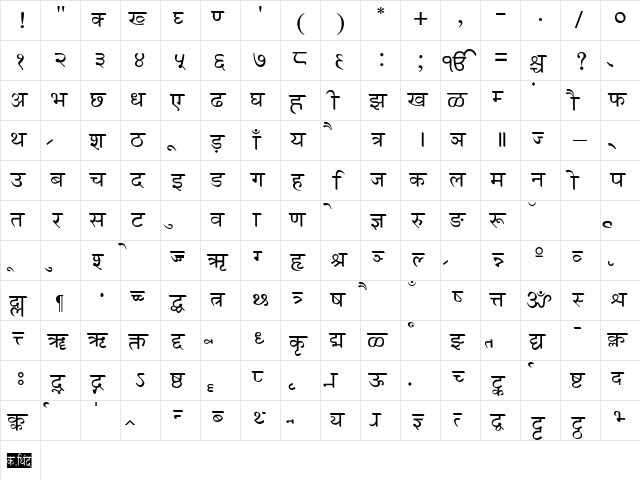
GurbaniHindiWeb Regular
| Foundry | thnd |
| Designer | Kulbir S. Thind, MD |
Design Context for GurbaniHindiWeb Typeface
GurbaniHindiWeb is a composed and adaptable typeface that performs quietly and consistently across a wide range of design contexts.